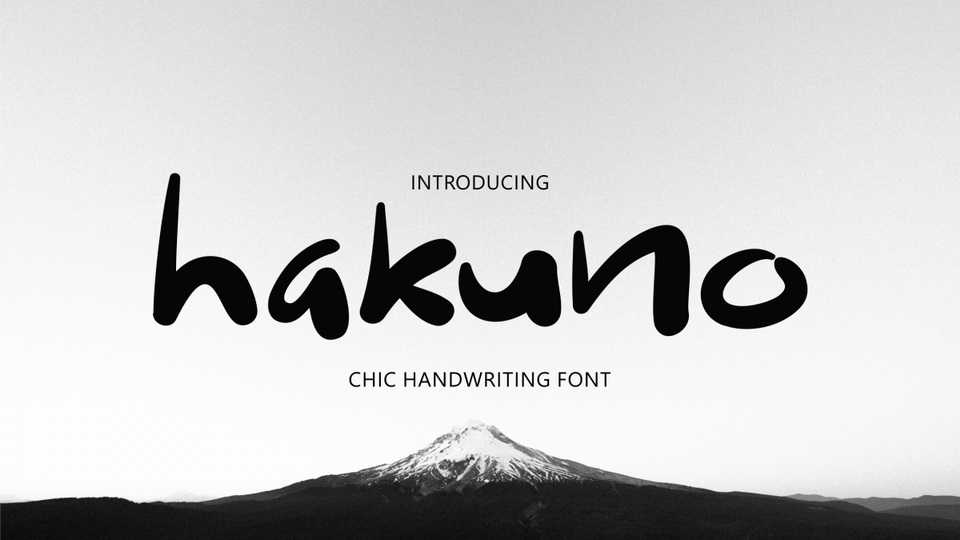
Download Hakuno font, a chic and casual handwriting typeface. Hakuno is suitable for poster, website, product names, branding, editorial, website header, and many more.